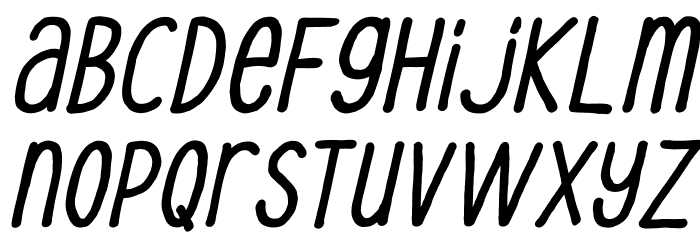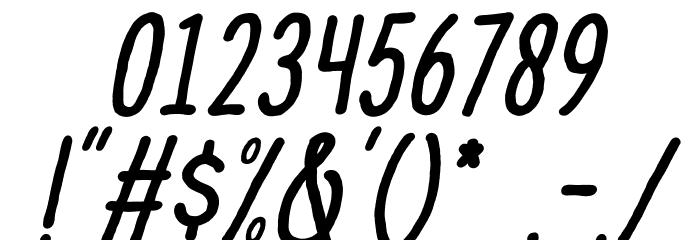
Le-Havre-City-Medium-Oblique Font
This font features a dynamic and fluid style with a distinct oblique slant, giving it a sense of motion and energy. The characters are elongated with a consistent medium weight, providing a balanced appearance. The uppercase and lowercase letters maintain a cohesive look, with smooth curves and rounded edges that enhance readability. The numerals and special characters are designed to match the overall aesthetic, ensuring uniformity across all glyphs. This font's playful yet professional vibe makes it versatile for various design applications.
A dynamic, oblique font with smooth curves and a medium weight.
- Font: Le-Havre-City-Medium-Oblique
- Proposed Projects: Ideal for branding, advertising, posters, and creative projects that require a lively and modern touch.